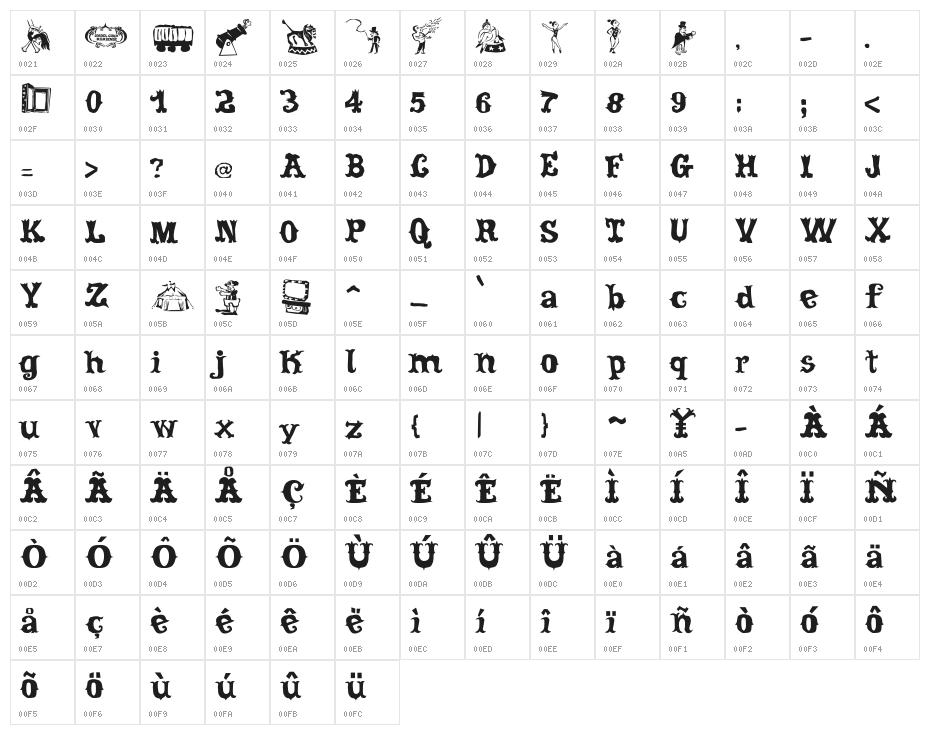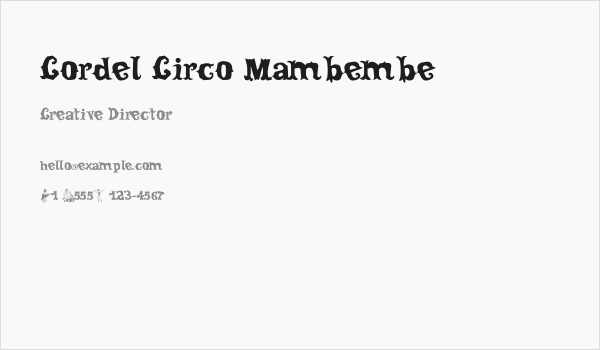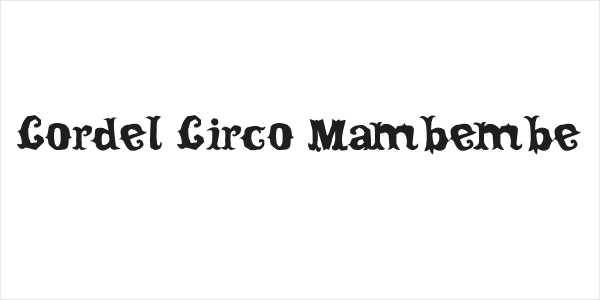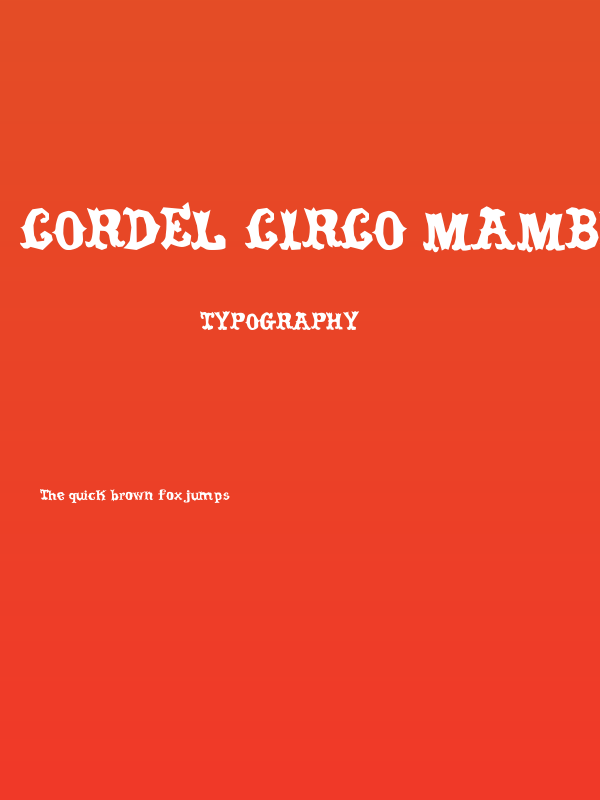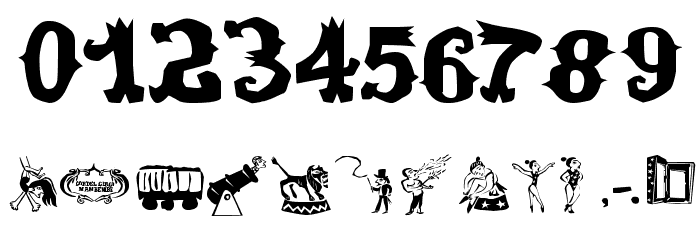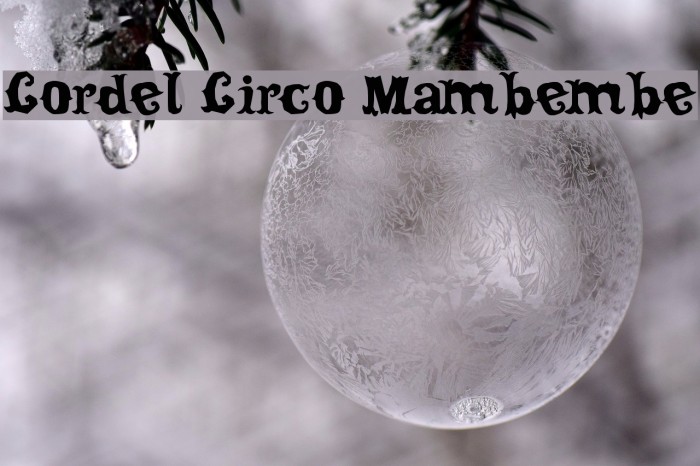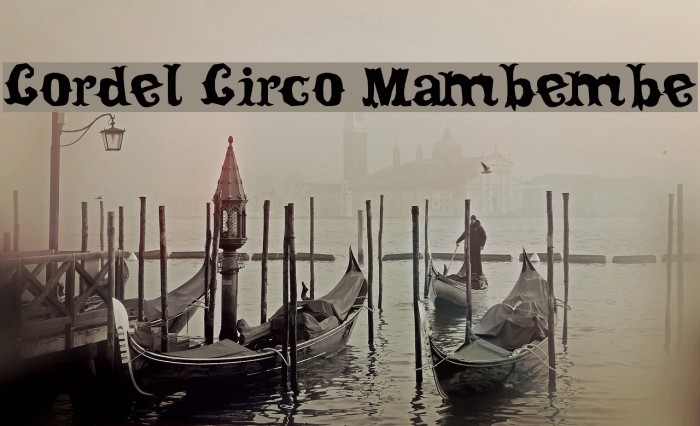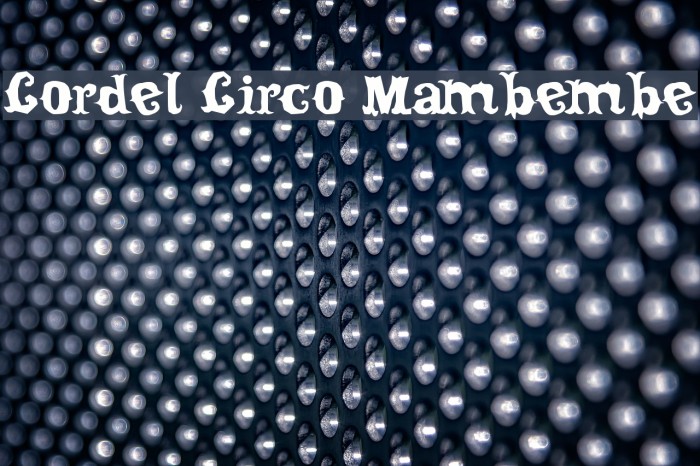
Cordel Circo Mambembe Font
Fonts by Galdino Otten - galdinootten.com
| Caso d'uso | Headlines, Posters, Artistic projects |
| Progetti proposti | Ideal for posters, children's books, event invitations, and any project requiring a playful, artistic touch. |